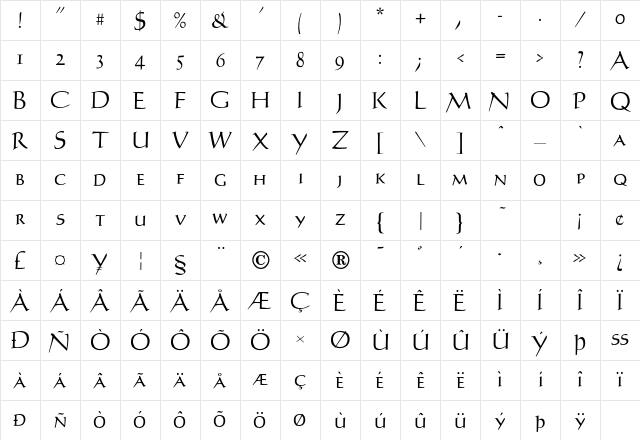
Humanist SmallCaps
Style: SmallCaps
Humanist Family
Humanist SmallCaps
Design Context for Humanist
Humanist is a composed and adaptable typeface that performs quietly and consistently across a wide range of design contexts.